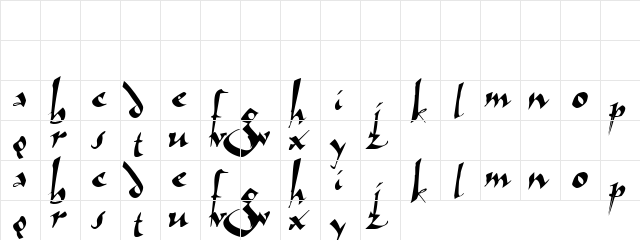
Swordtail Regular
Design Context for Swordtail Typeface
Swordtail is a composed and adaptable typeface that performs quietly and consistently across a wide range of design contexts.